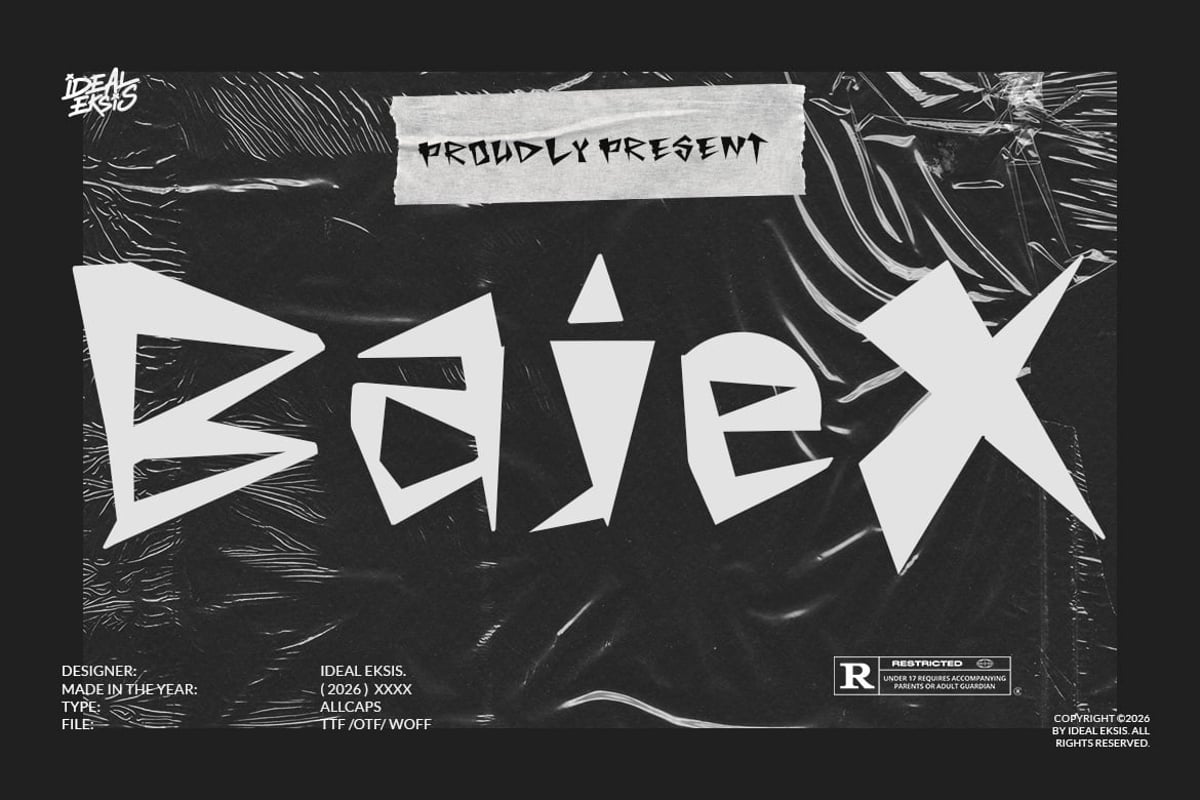
Bajex - Typeface
Unleash raw energy with Bajex, a bold aggressive display typeface featuring razor-sharp edges and rebellious punk aesthetics.
This powerful font showcases jagged, irregular geometric letterforms with high-contrast weight and pointed terminals that command attention. Each character exhibits unconventional structure with striking elements like triangular cutouts in the 'B' and a bold cross-like 'x' symbol that creates maximum visual impact.
Perfect for high-impact visual communication projects including music album covers, alternative branding campaigns, and experimental poster designs where a gritty, rebellious tone is essential. The distorted silhouettes and punk-inspired aesthetic make this typeface ideal for any project demanding an edgy, uncompromising presence.
- Uppercase (All Caps)
- Numerals
- Punctuation